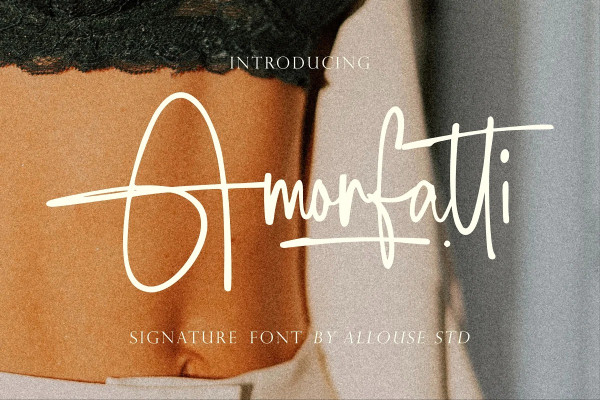
Amorfatti Font
Amorfatti Font is a stylish script font, perfect for product packaging, branding projects, magazines, social media, weddings, flyers, cards and so much more.